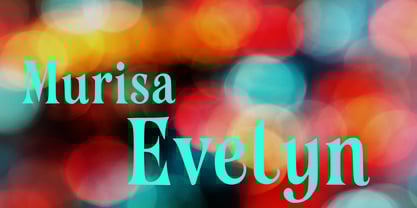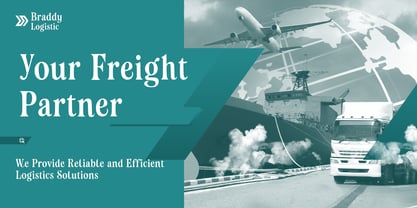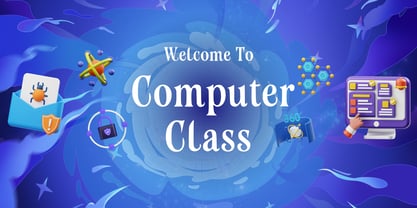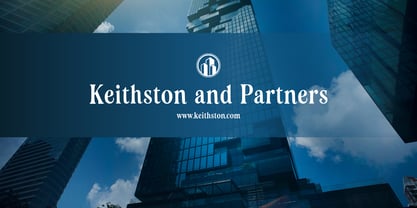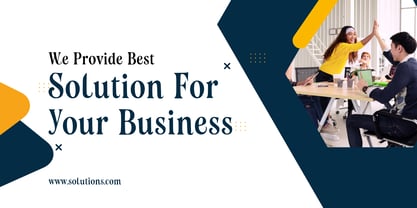
Murisa Evelyn
by Murisa Studio
The Murisa Evelyn Font Family was designed by Lili Sadili and published by Murisa Studio. Murisa Evelyn contains 1 styles.
🌟 Murisa Evelyn – Where Elegance Meets Rebellion 🌟
Step into a world where bold artistry and refined detail collide. Murisa Evelyn is not just a font—it’s a statement. Designed for visionaries, this typeface blends dramatic contrast with sculptural finesse, making every letter feel like a handcrafted piece of art.
Distinctive Features
• Sophisticated curves meet unexpected angles, giving each character a magnetic presence.
• The lowercase “g” and “a” are especially captivating—designed to intrigue, not conform.
• Perfectly balanced thick-thin strokes evoke both strength and grace.
🌍 Multilingual Power Crafted with care to support Eastern European languages, Murisa Evelyn speaks to a global audience without losing its unique voice.
🎯 Ideal For Luxury branding, editorial headlines, fashion campaigns, album covers, and any project that demands unapologetic style and unforgettable impact.
💎 Why Choose Murisa Evelyn? Because ordinary fonts whisper. Murisa Evelyn roars.
Designers: Lili Sadili
Publisher: Murisa Studio
Foundry: Murisa Studio
Design Owner: Murisa Studio